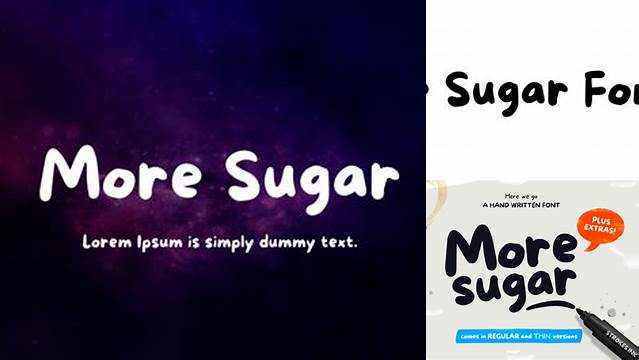
Hey guys! Are you on the hunt for the perfect font to add a sweet touch to your designs? Look no further! The More Sugar font might just be what you need. It’s playful, stylish, and can add a unique flavor to your projects. In this guide, we'll explore everything about this font, from what makes it special to where you can find it for free and how to use it effectively.
What is the More Sugar Font?
The More Sugar font is a delightful typeface known for its sweet and whimsical design. Characterized by its rounded edges, playful curves, and a generally cheerful aesthetic, this font is perfect for projects that need a touch of fun and lightheartedness. The font is designed to be versatile, making it suitable for a wide range of applications. Whether you are designing a children's book, creating eye-catching marketing materials, or working on a personal blog, the More Sugar font can help you add a unique and memorable touch. Its distinctive style ensures that your text stands out, capturing the attention of your audience and conveying a sense of joy and creativity. The font's playful nature makes it an excellent choice for projects aimed at younger audiences or those that require a friendly and approachable feel.
Using the More Sugar Font in Graphic Design
The More Sugar font can be a fantastic asset in graphic design, adding a touch of sweetness and whimsy to your projects. Its playful and friendly appearance makes it particularly well-suited for designs aimed at children, such as book covers, posters, and educational materials. The font's rounded edges and cheerful curves can also be used effectively in branding for businesses that want to convey a sense of fun and approachability, such as bakeries, toy stores, and party supply shops. When using the More Sugar font in graphic design, consider pairing it with complementary fonts that provide contrast and balance. A clean, sans-serif font can work well for body text, while the More Sugar font is reserved for headings, logos, or decorative elements. Experiment with different colors and sizes to create visual interest and ensure readability. Remember to use the font sparingly to avoid overwhelming the design and maintain a professional and polished look. By incorporating the More Sugar font thoughtfully and creatively, you can enhance your graphic designs and capture the attention of your target audience.
Utilizing More Sugar Font in Web Design
In web design, the More Sugar font can be a great way to add personality and charm to your website. Its playful and whimsical design makes it ideal for websites that cater to children, such as educational platforms, online games, and kid-friendly blogs. The font can also be used effectively in websites for businesses that want to project a friendly and approachable image, such as bakeries, party planners, and handmade craft shops. When using the More Sugar font in web design, consider the overall aesthetic of your site and ensure that the font complements your brand identity. Use the font sparingly, reserving it for headings, logos, or decorative elements to avoid overwhelming the design. Pair the More Sugar font with a clean, readable sans-serif font for body text to ensure a seamless user experience. Optimize the font for web use by using CSS to control its size, color, and spacing. Test the font on different devices and browsers to ensure it displays correctly and maintains its visual appeal. By carefully integrating the More Sugar font into your web design, you can create a unique and engaging online presence that captures the attention of your visitors.